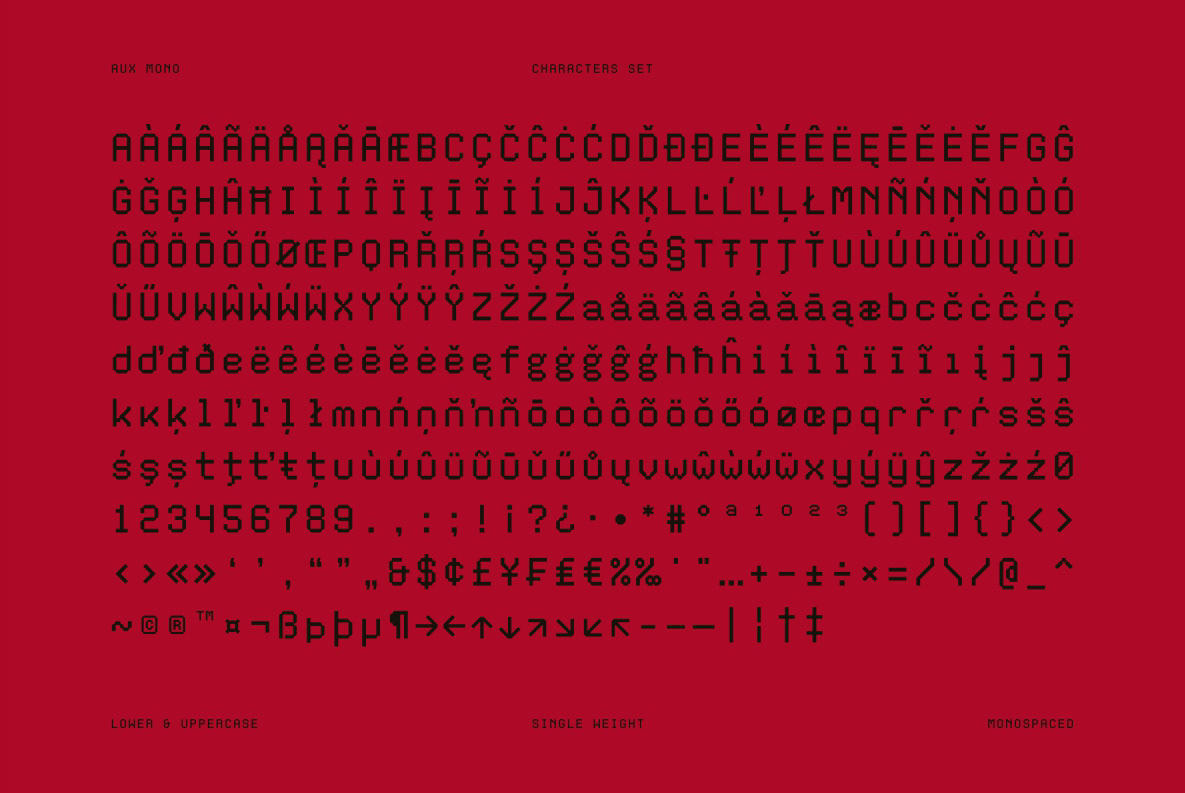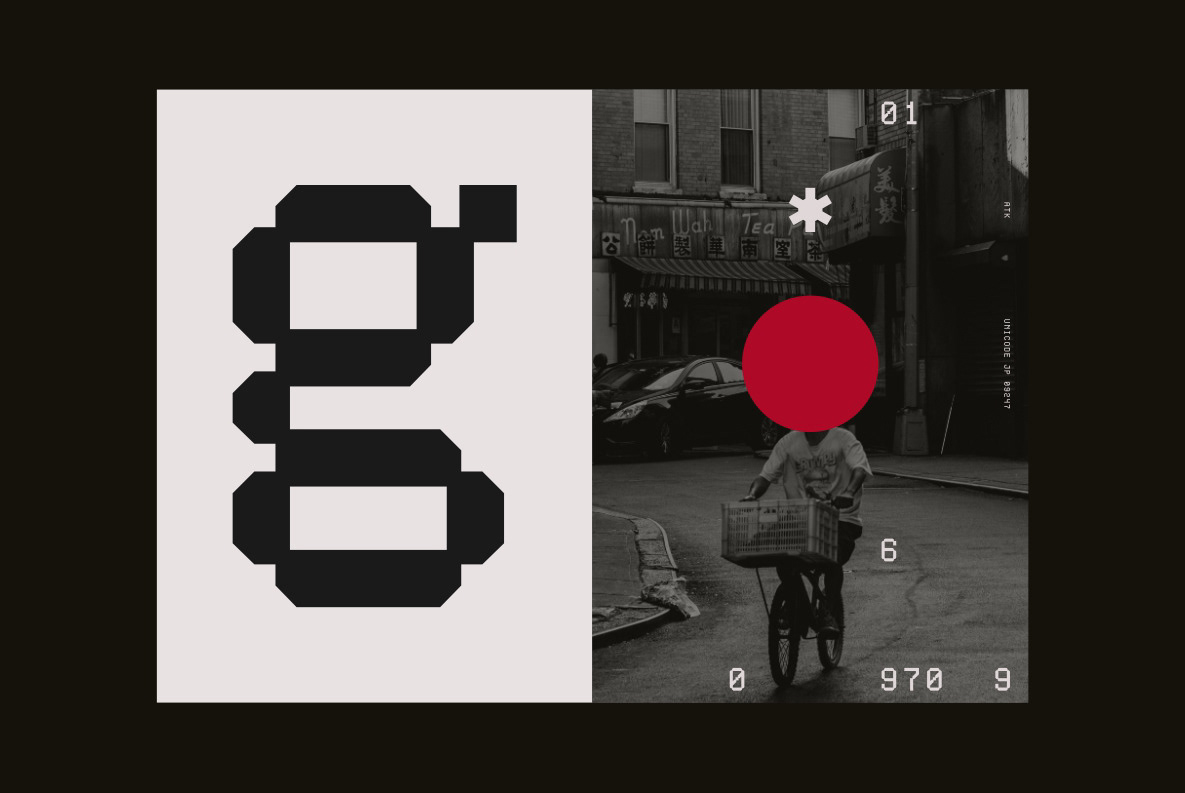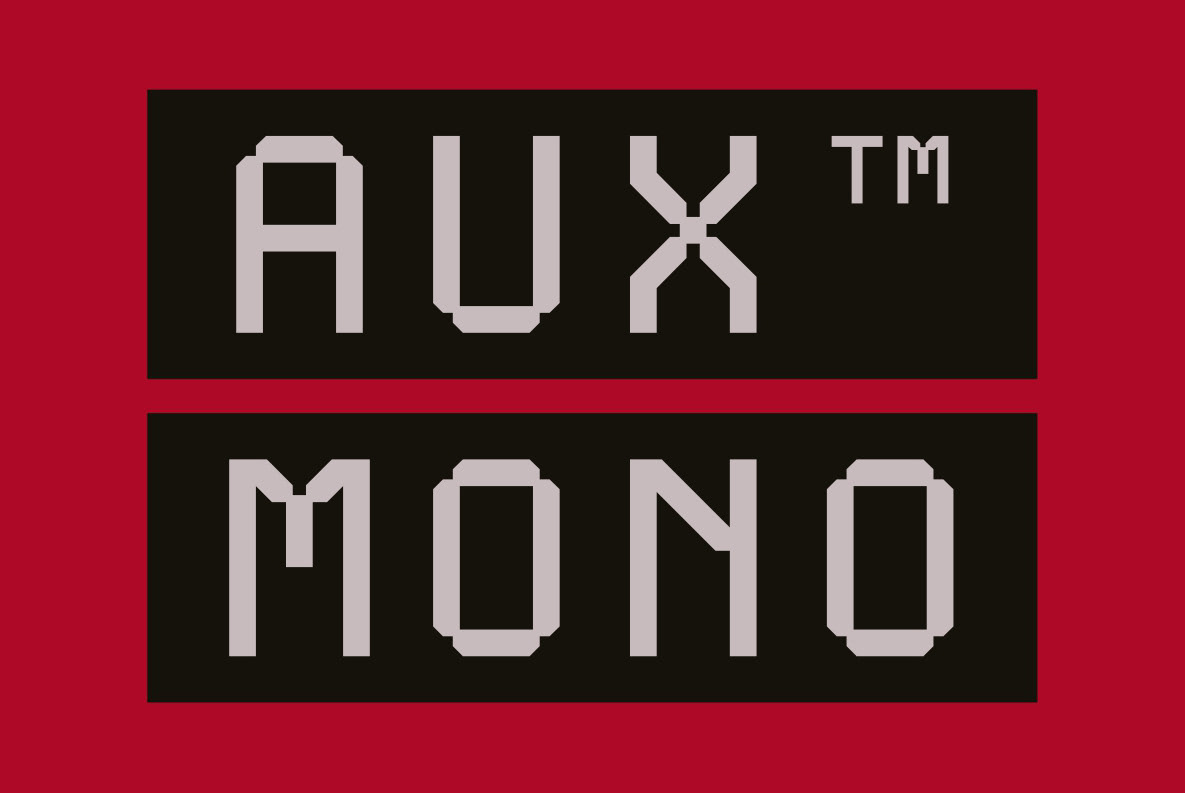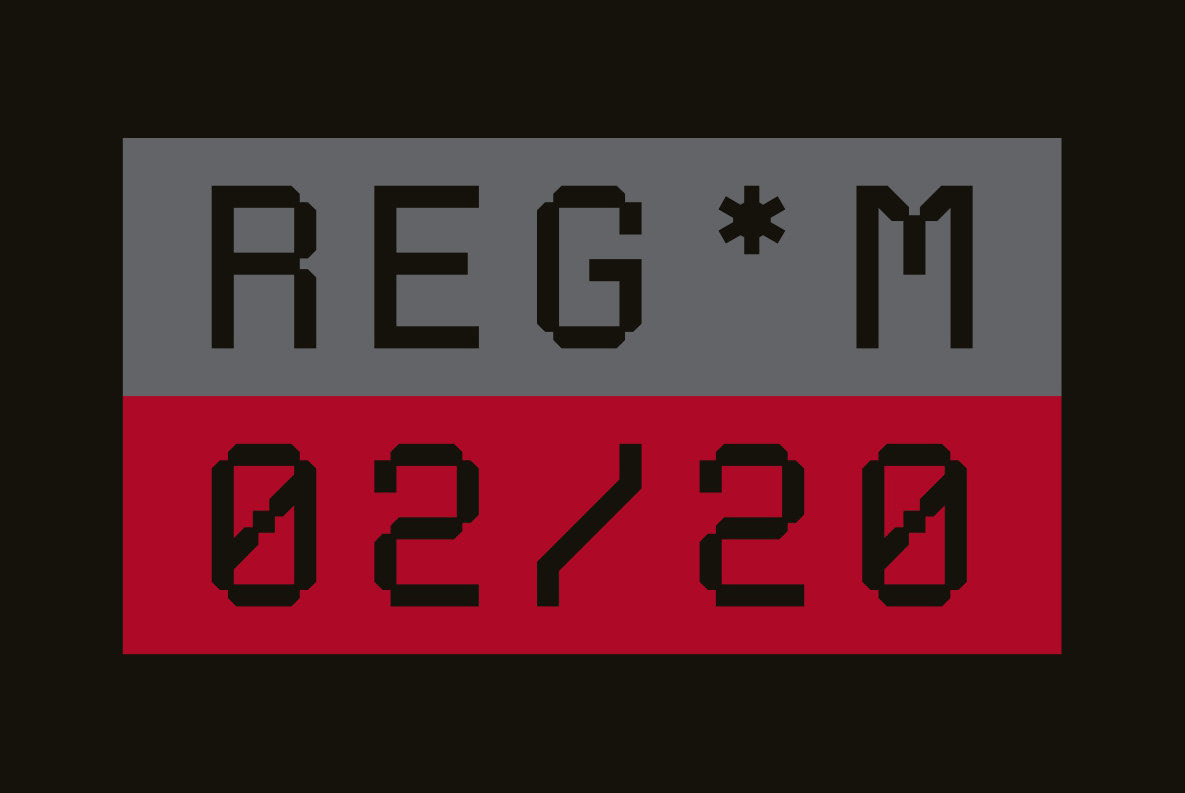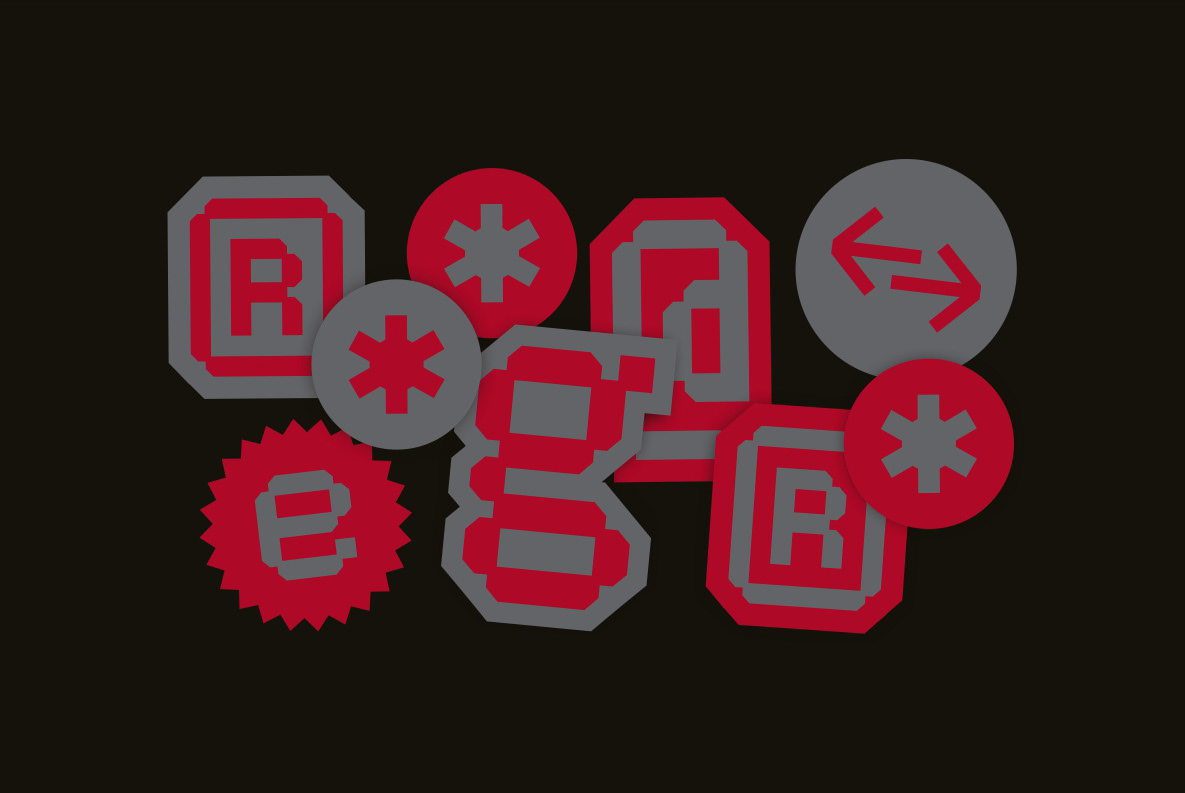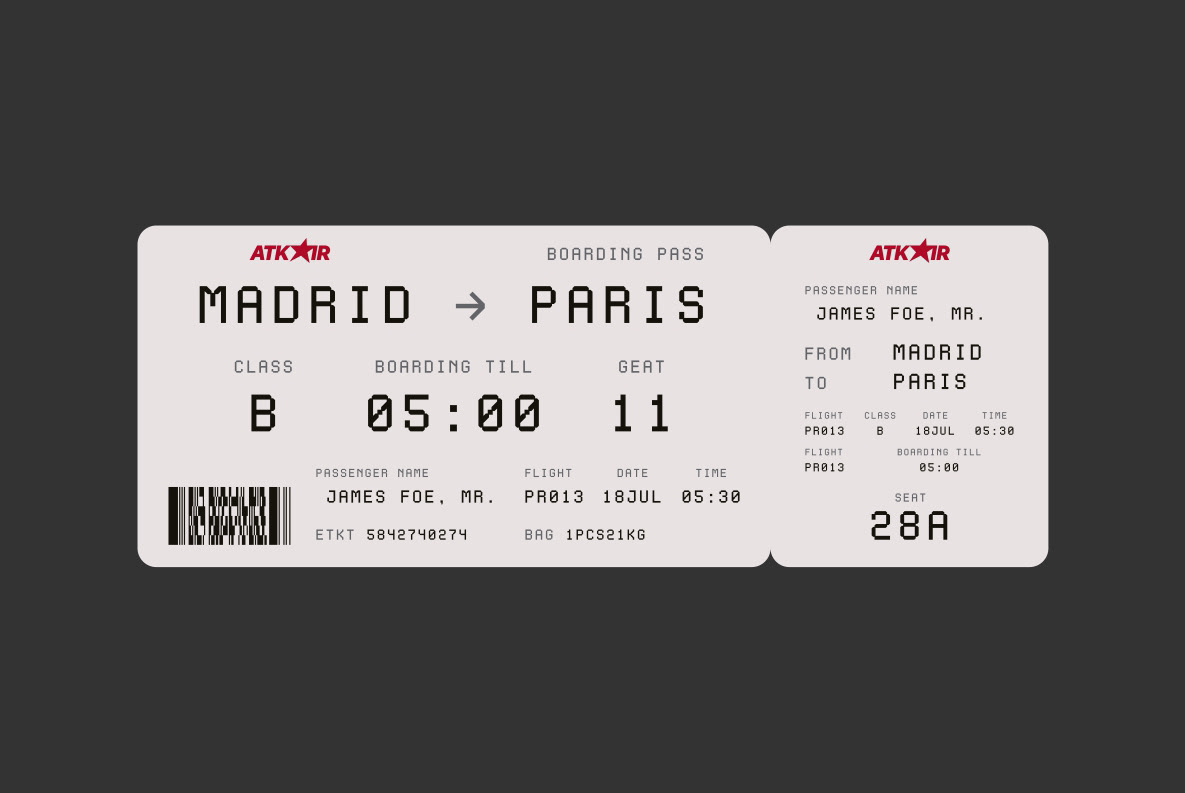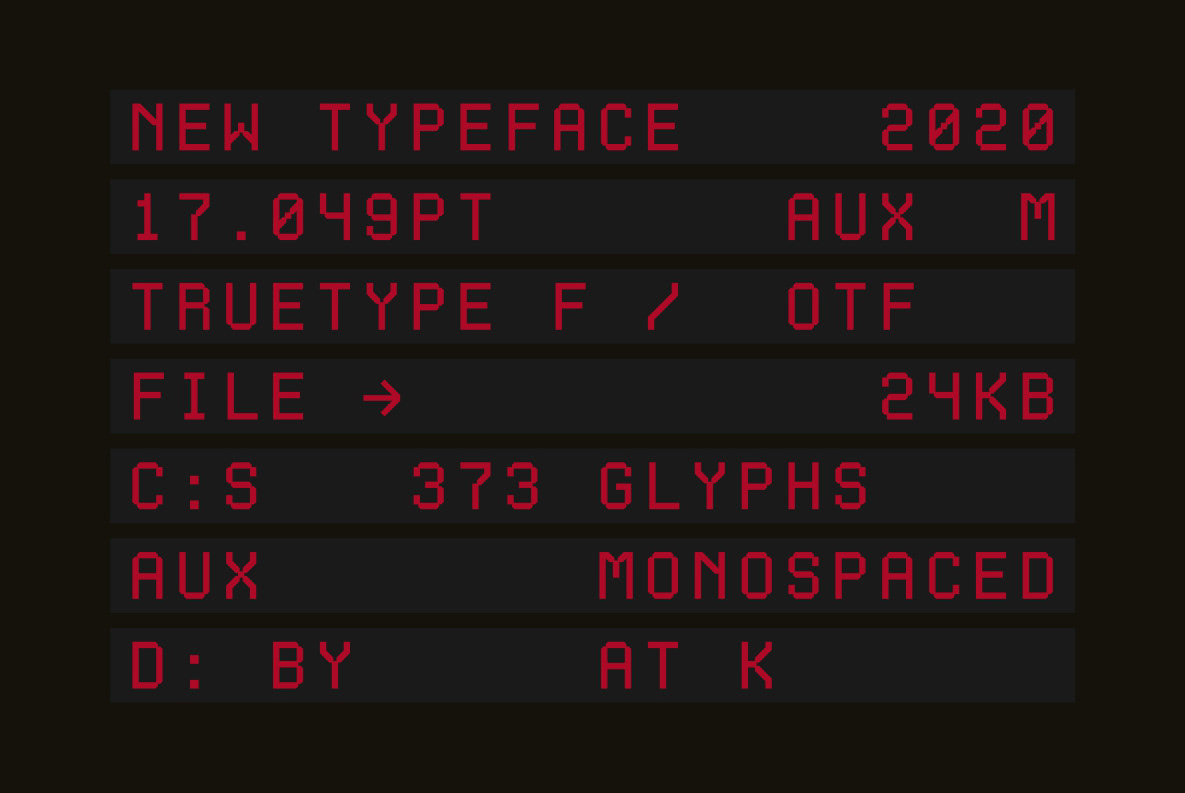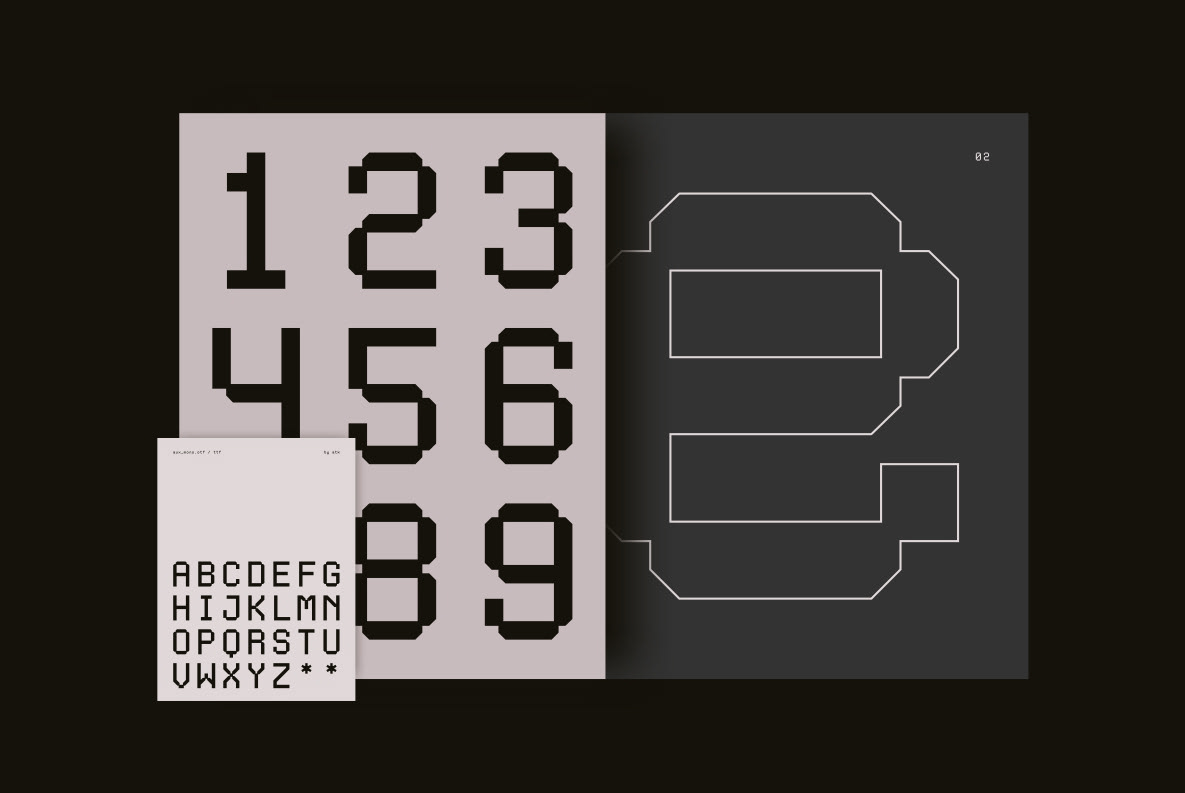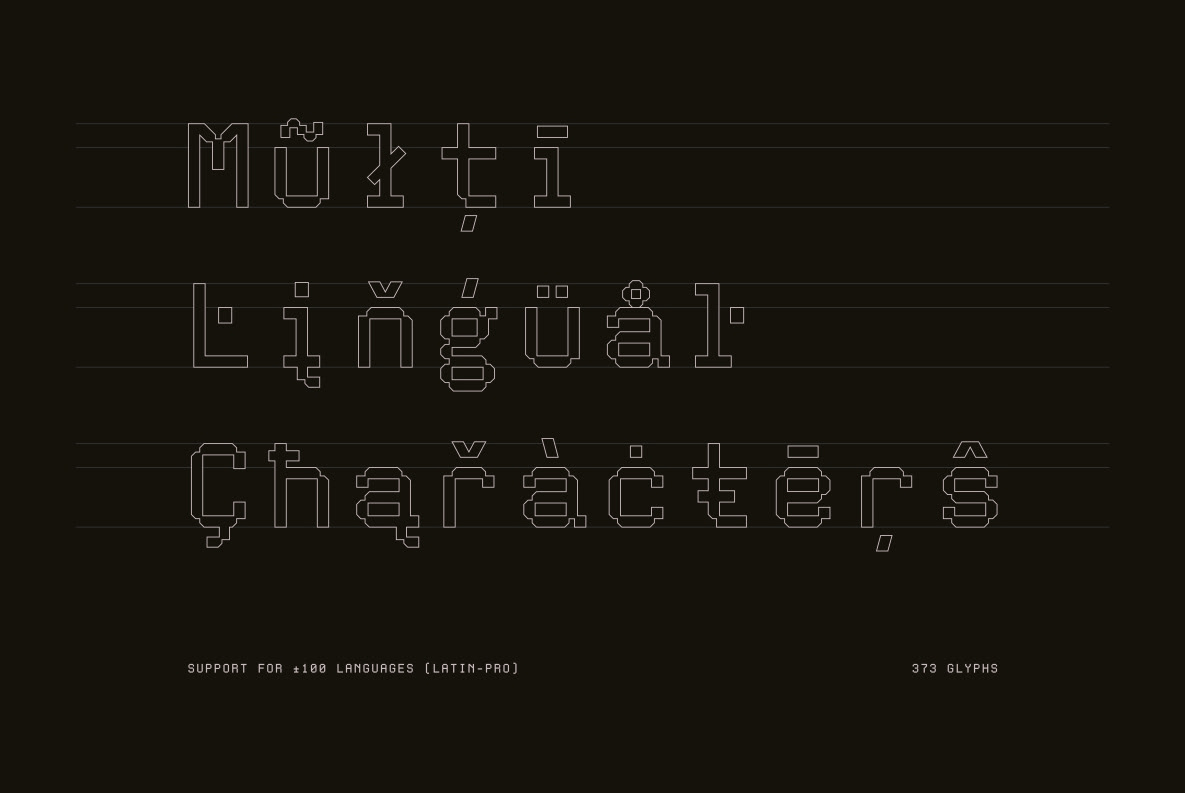
Aux Mono is a display monospaced font designed with tech industrial taste and solid font style by Radinal Riki. Inspired by airline tickets and airport sign font. created for electronic displays found in our modern techie world such as postal packing slips, airline tickets, informational video displays, coding, ads, logos and more. Come in single weight, uppercase and lowercase with a character set that covers over 100 languages.